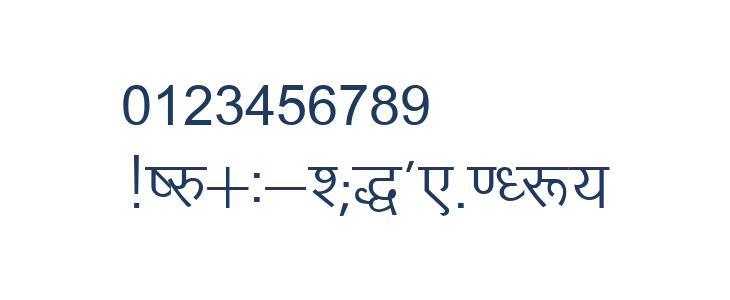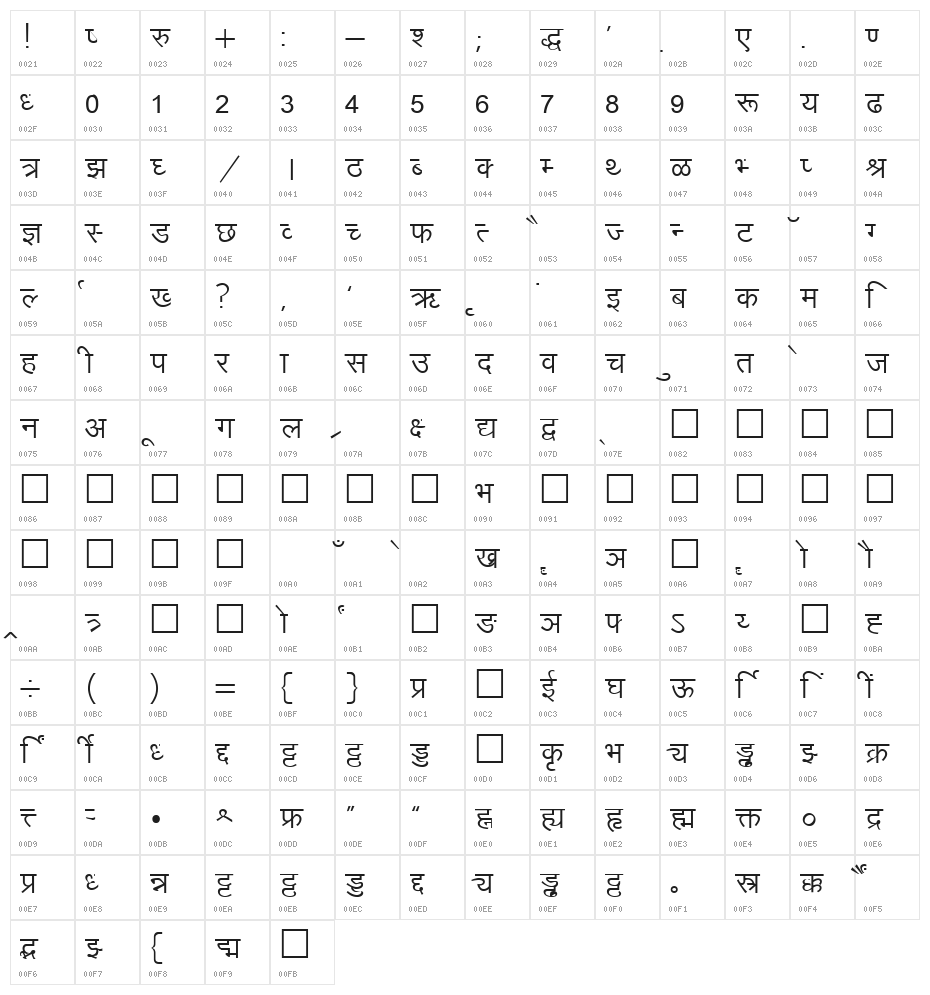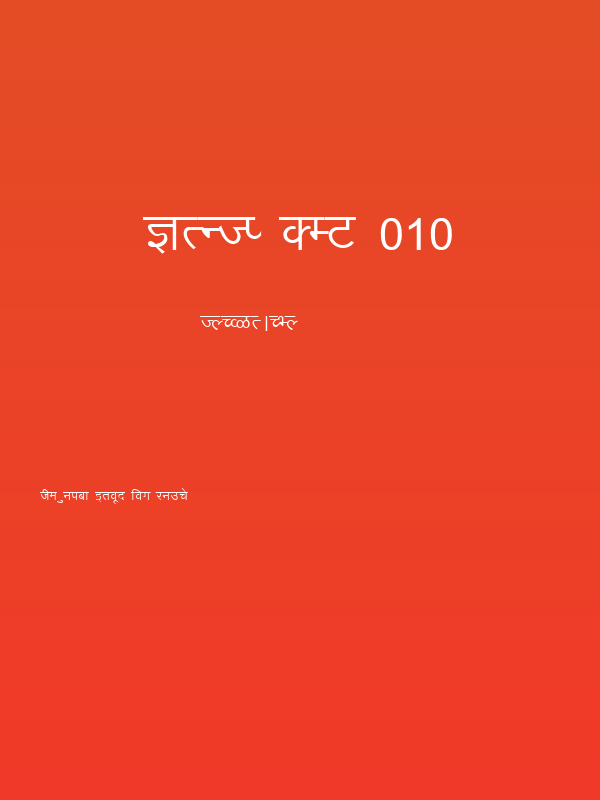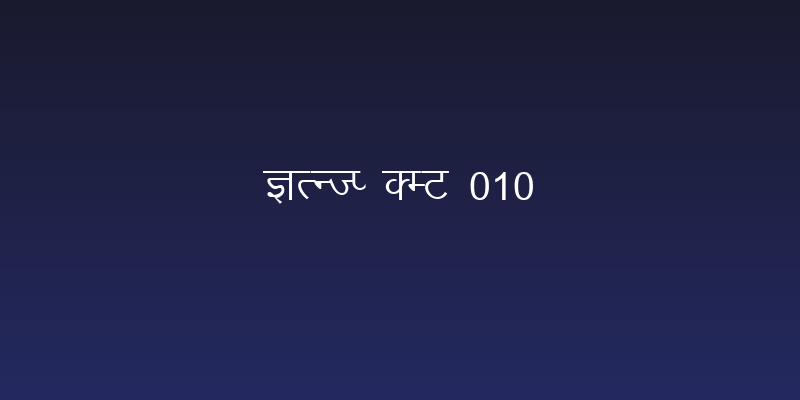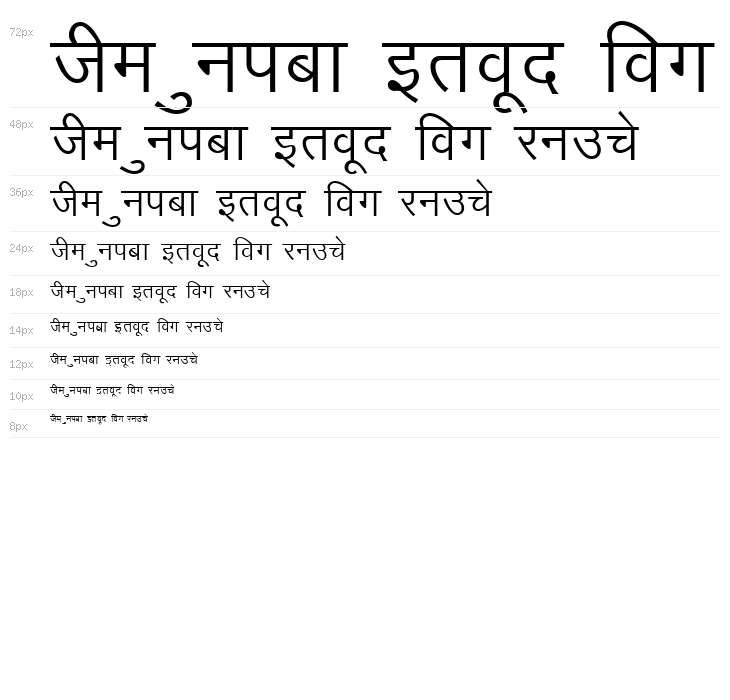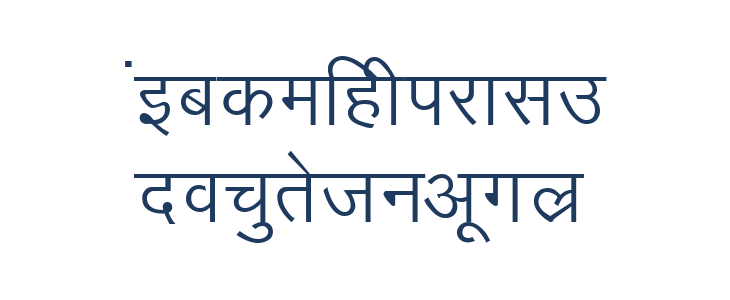
Kruti Dev 010 Font
Kruti Dev 010 Description
This font is a traditional Devanagari script, characterized by its clear and distinct letterforms. The characters are well-defined with a consistent stroke width, making it highly legible. The script maintains a classic appearance with a slight decorative touch, evident in the curves and loops of certain letters. The numerals are straightforward and align well with the overall style of the script. Special characters are included, adding versatility for various uses. The font is suitable for both formal and informal contexts, providing a balance between readability and aesthetic appeal.
| Use Case | Body text, Educational materials, Cultural publications |
| Proposed Projects | Ideal for educational materials, cultural publications, and digital content requiring Devanagari script. |